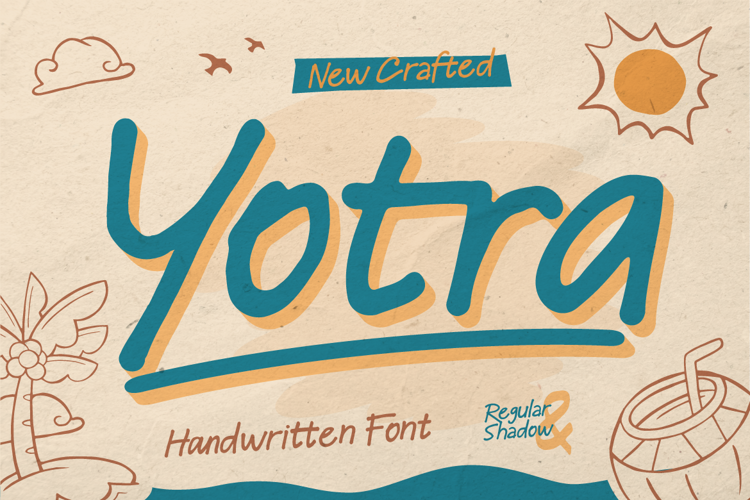
Yotra Font
Yotra is a playful handwritten font with 4 unique styles: Regular, Shadow, Graphic Regular, and Graphic Shadow. Perfect for fun and casual designs.